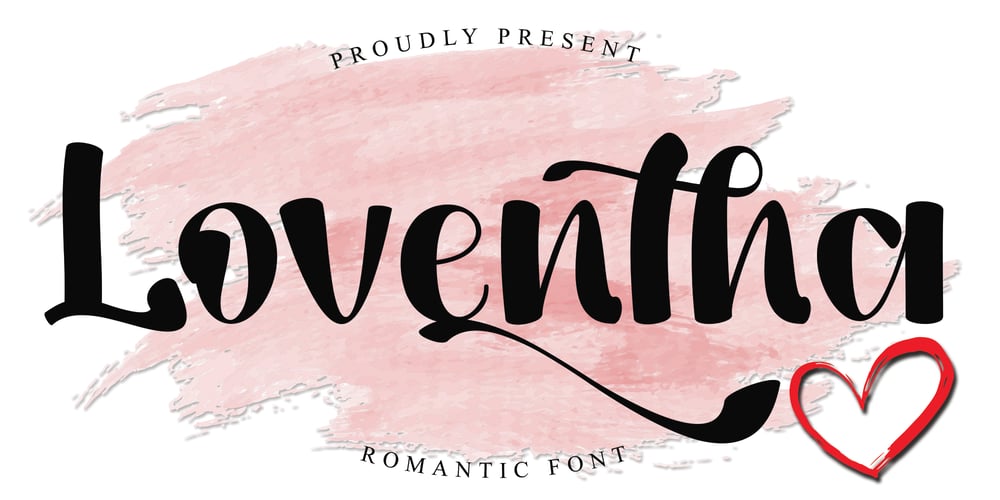
Loventha
Loventha font
Loventha Font Family was designed by Harjuno Kristanto and published by Arkrist Letter. Loventha contains 1 styles and family package options. Loventha font is the latest script written by Arkrist Letter studio. A font inspired by a very romantic thing.Designed with great care so as to produce very neat and elegant letter lines, it looks beautiful and romantic.Loventha is very suitable for greeting cards, t-shirt designs, logos, etc.Loventha is a masterpiece created with love!